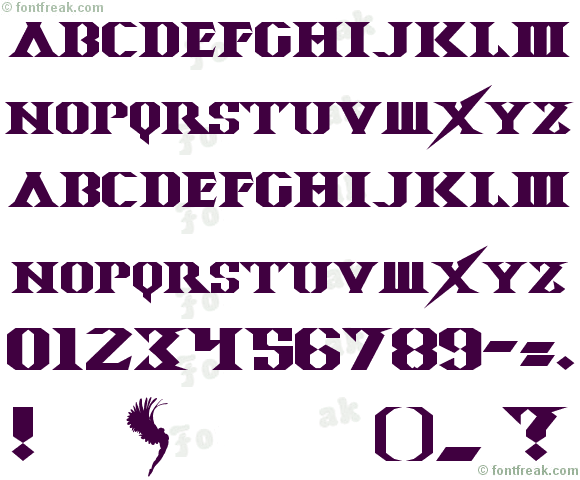
Space Angel
About Space Angel
The Space Angel font, crafted by Sharkshock in 2014, is a striking display typeface that embodies a unique blend of futuristic and whimsical design. With its bold, angular strokes and distinctive letterforms, this font captures the essence of outer space themes while maintaining an approachable charm. The stroke weight is consistent, providing a sturdy appearance, while the sharp edges and geometric shapes create a sense of movement and dynamism. The spacing between characters is well-considered, ensuring readability without sacrificing its eye-catching flair.
This font is particularly well-suited for a variety of creative projects. For graphic designers seeking to infuse a cosmic vibe into their work, Space Angel excels in applications such as movie posters, where it can evoke a sense of adventure and intrigue. It also shines in designing promotional materials for gaming events or science fiction conventions, adding an exciting visual element that captures attention. Furthermore, small business owners in the tech or entertainment sectors can utilize this font for branding and marketing materials, ensuring their message stands out in a crowded marketplace. Content creators will find this font ideal for eye-catching social media graphics and web designs that aim to engage and entertain.
The target audience for Space Angel spans graphic designers, small business owners, and content creators who are looking for a font that offers both personality and versatility. What truly sets the Space Angel font apart is its ability to transport viewers into a realm of imagination while remaining functional and legible. The Space Angel font free download makes it accessible for anyone looking to elevate their designs with a touch of cosmic flair, ensuring that your projects will leave a lasting impression.